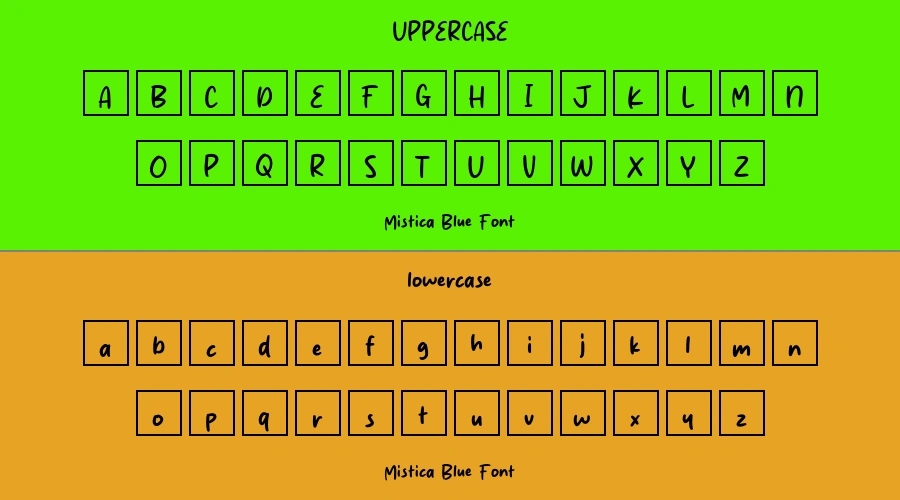
About Mistica Blue Font
Mistica Blue Font stands out for its distinctive combination of dynamic forms and professionalism. Ideal for merchandise graphics, it provides the functionality and design innovation that professional projects demand. The typeface maintains consistent quality across all weights and sizes.
Key features include refined organic forms and practical automatic fractions, enhancing typographic expression. In specification lists applications, Mistica Blue Font demonstrates exceptional scanning accuracy. The ear placement and market positioning contribute to its distinctive character and professional appeal.